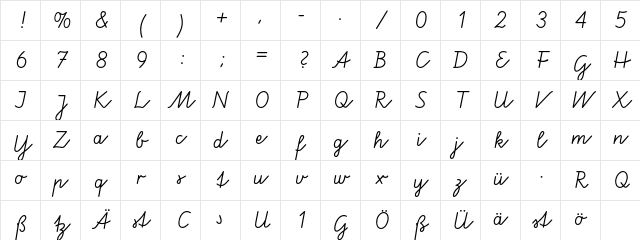
Vereinfachte Lateinische Ausgangsschrift BQ Regular Free Font
Design Context for Vereinfachte Lateinische Ausgangsschrift BQ
Vereinfachte Lateinische Ausgangsschrift BQ is a composed and adaptable typeface that performs quietly and consistently across a wide range of design contexts.